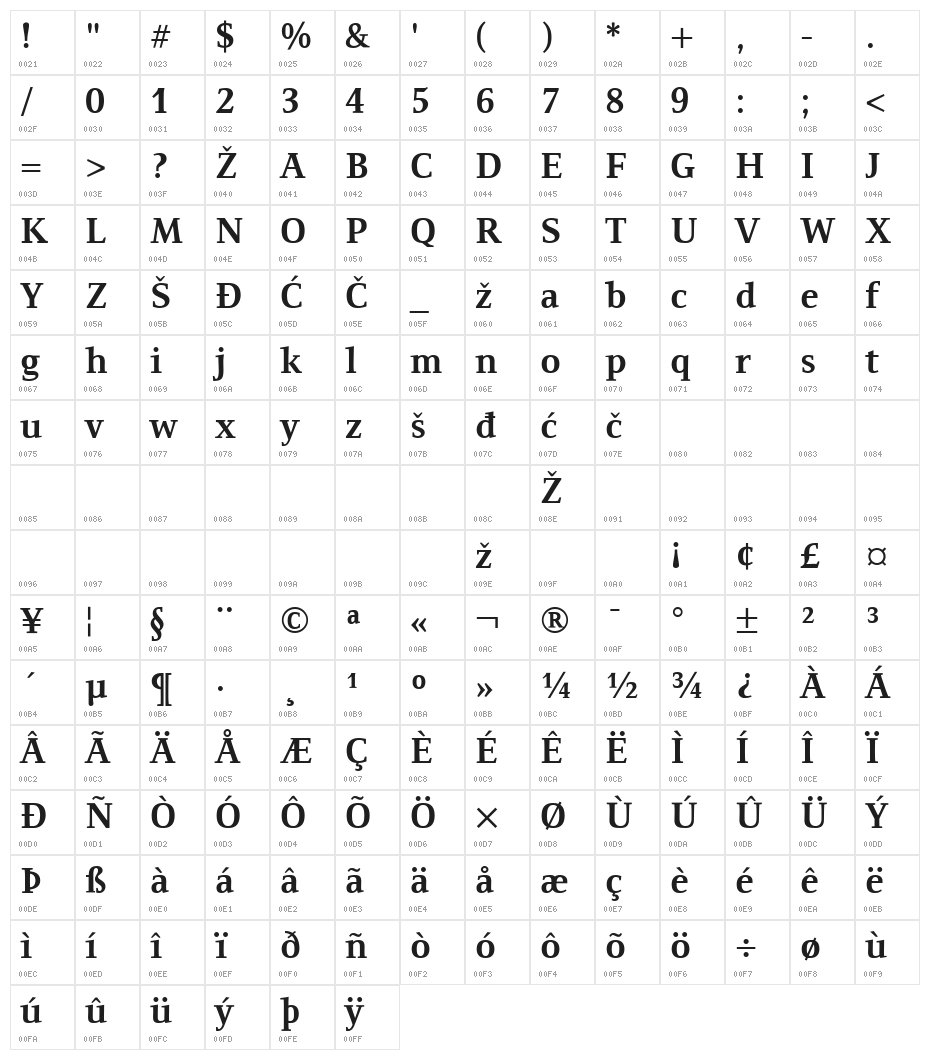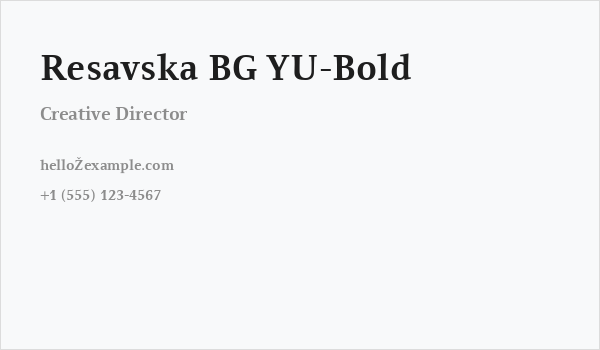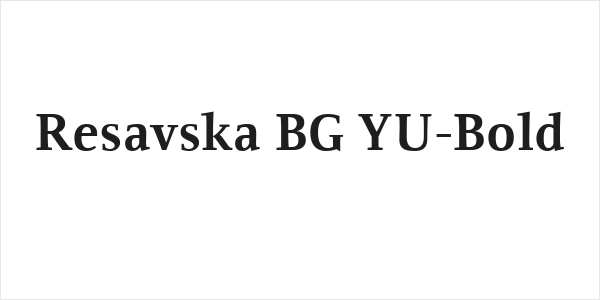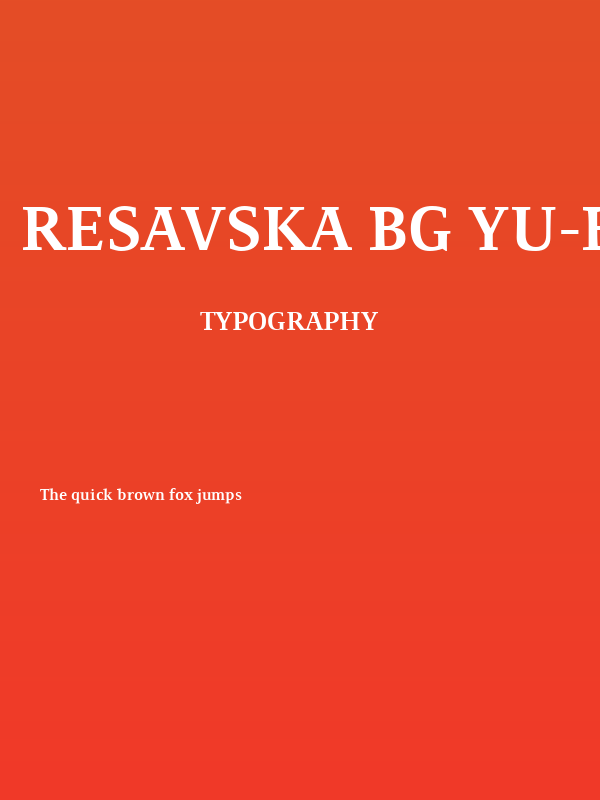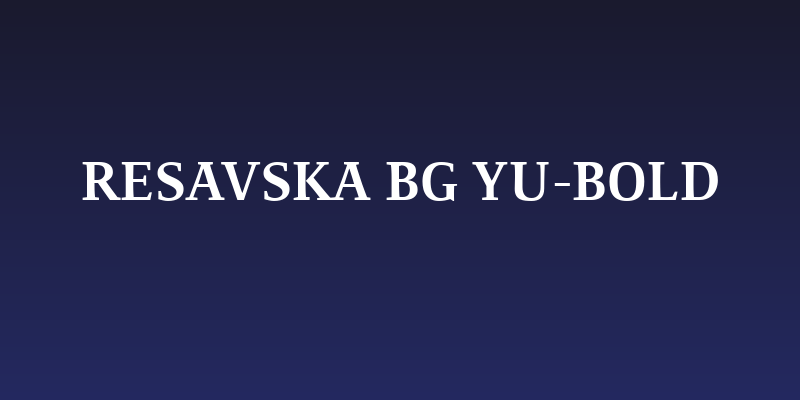
Resavska BG YU-Bold Font
Resavska BG YU-Bold Description
This font exhibits a classic serif style with strong, bold strokes that convey a sense of authority and tradition. The serifs are pronounced, adding a touch of elegance and readability, making it suitable for both print and digital media. The uppercase letters are robust and commanding, while the lowercase letters maintain a harmonious balance with slightly rounded edges. The numerals are clear and consistent, ensuring legibility. Special characters are well-integrated, maintaining the overall aesthetic of the typeface. The design is versatile, offering a timeless appeal that can adapt to various contexts.
Proposed ProjectsIdeal for book covers, formal invitations, editorial layouts, and branding projects that require a traditional yet impactful look.